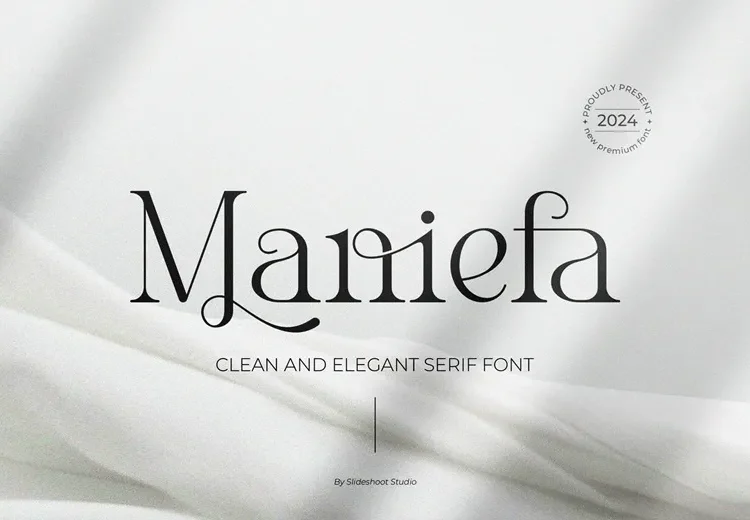
Maniefa Font
Maniefa is a clean and elegant serif typeface designed to bring sophistication and class to your projects. With its refined design, this font adds interest and elevates any composition it is used in.
Perfectly suited for a variety of applications, Maniefa is ideal for invitation cards, logos, movie titles, business cards, book covers, brand names, and other design projects requiring a touch of elegance. Its versatile nature ensures it seamlessly fits both professional and creative contexts.
The font’s well-balanced structure makes it visually appealing, ensuring clarity while delivering a sense of luxury and style. From branding to personal projects, Maniefa is your go-to font for creating standout designs.